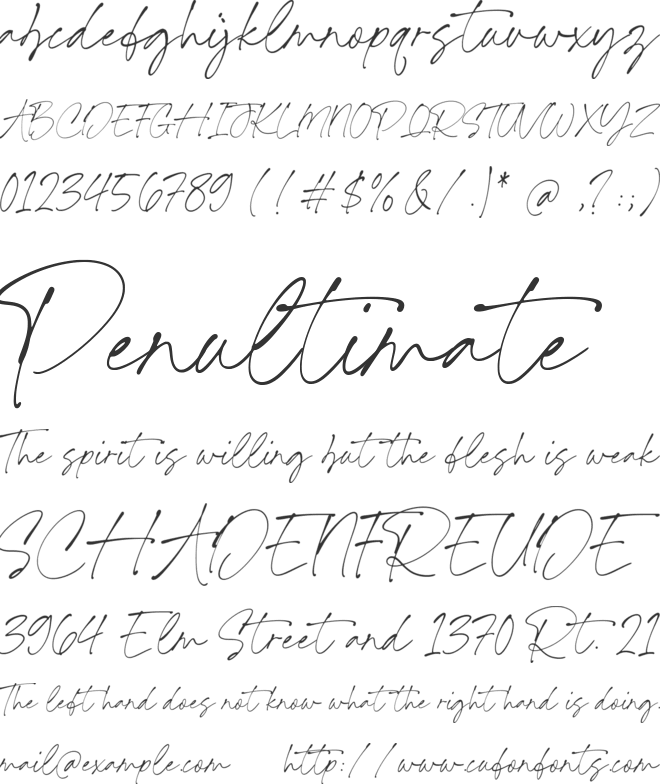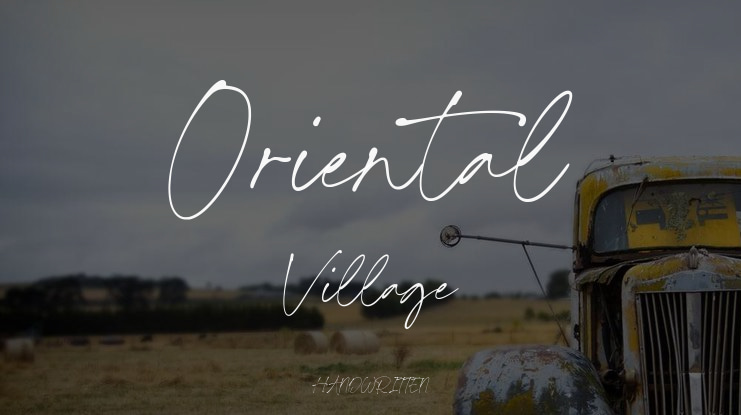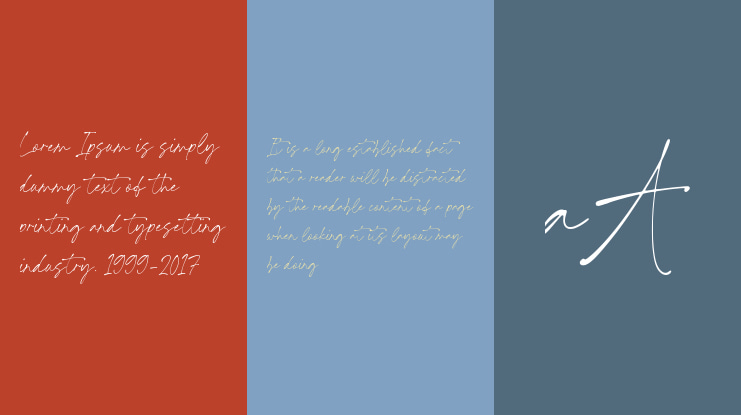
Introducing Oriental Village, a classic signature font crafted by Timurtype Studio. This elegant font exudes sophistication and grace with its refined and delicate letterforms, reminiscent of a handwritten signature. The exquisite strokes of the Oriental Village font radiate luxury and glamour, making it a perfect choice for high-end branding, invitations, and luxury packaging designs. Whether you seek a vintage-inspired aesthetic or a modern chic feel, this font offers versatility and beauty. Embrace the timeless allure of the Oriental Village classic signature font and elevate your designs with a touch of refined elegance and sophistication.